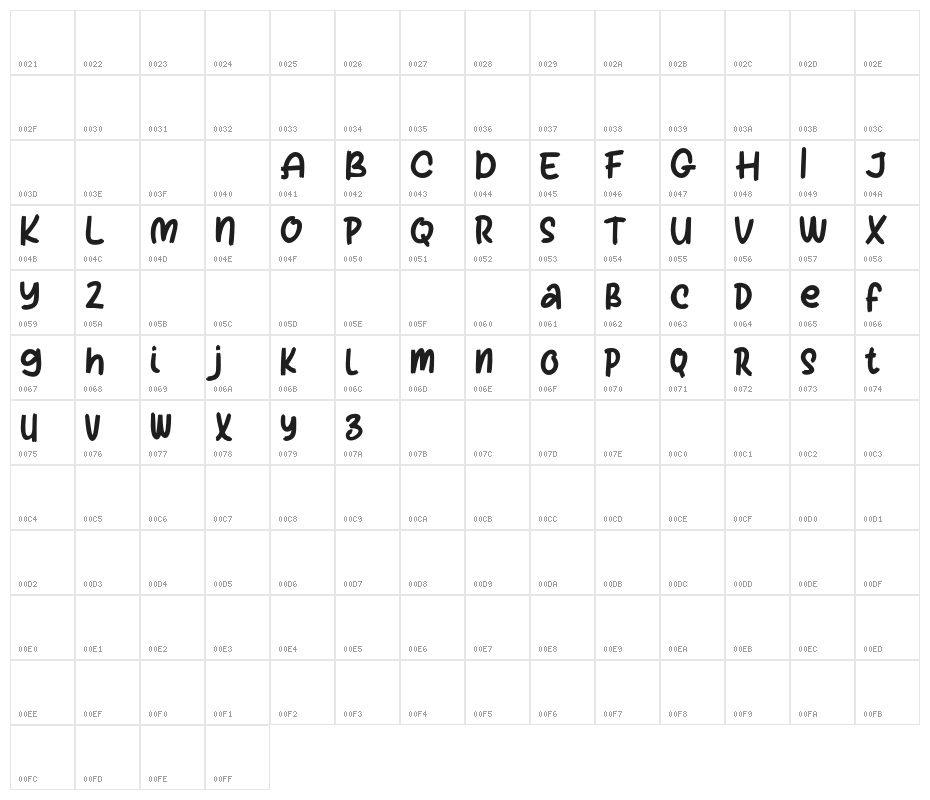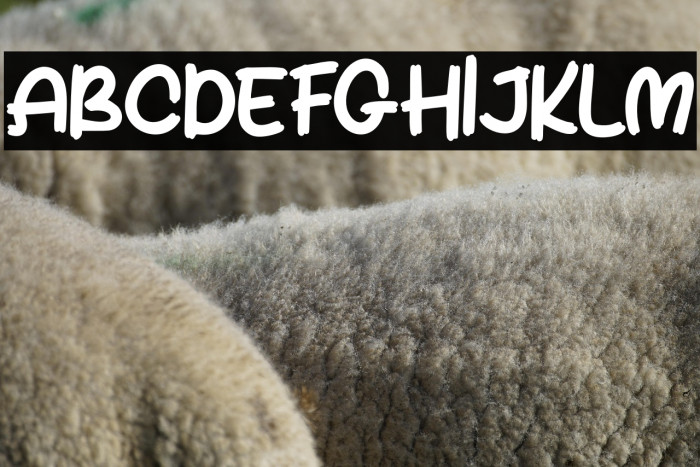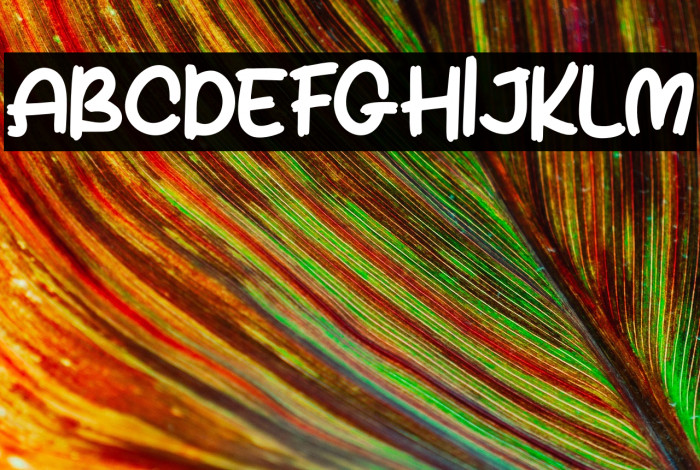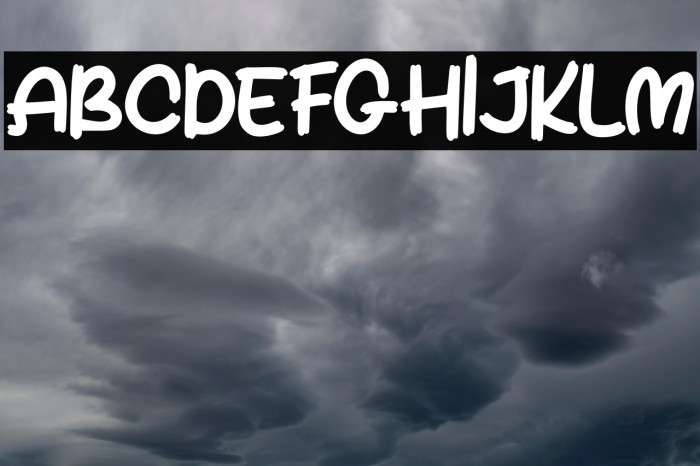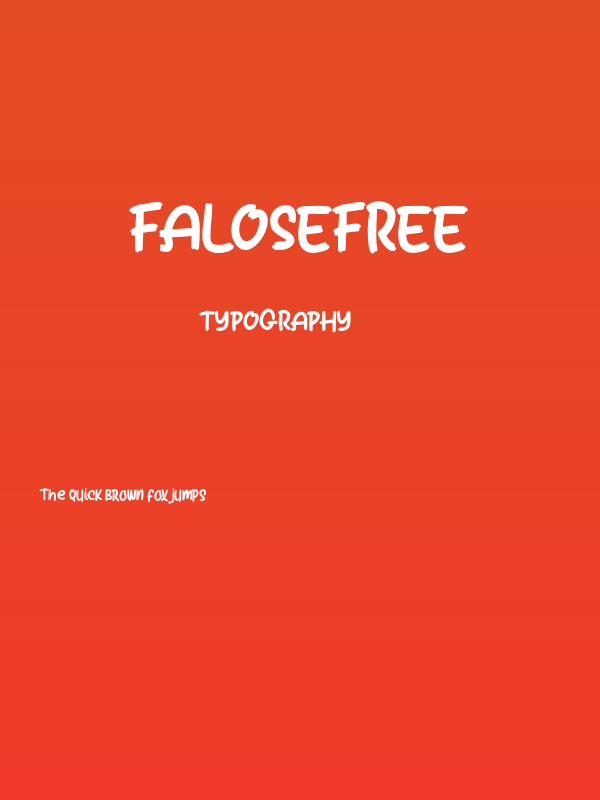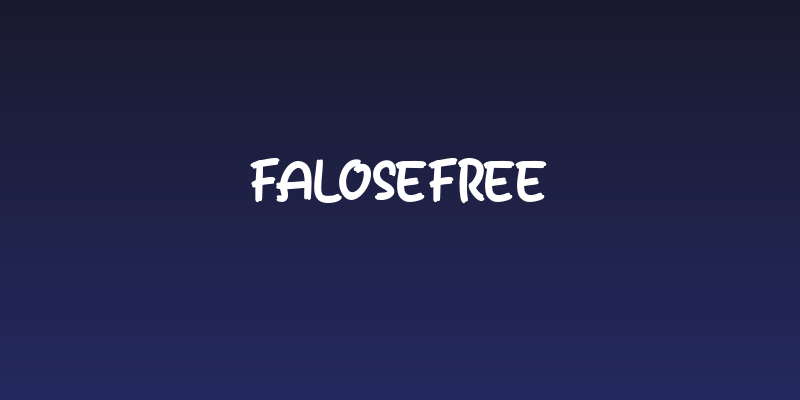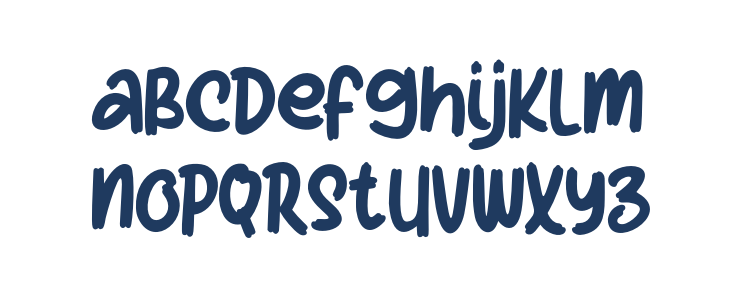
FaloseFREE Font
FaloseFREE Description
This font features a playful and bold handwritten style, characterized by its thick strokes and rounded edges. The letters are slightly slanted, giving it a dynamic and energetic feel. The uppercase and lowercase letters maintain a consistent style, with the lowercase letters being slightly more compact. The numbers and special characters follow the same aesthetic, ensuring uniformity across all characters. This font's informal and friendly appearance makes it suitable for creative and casual projects.
| Overall Style | Playful |
| Proposed Projects | Ideal for children's books, playful branding, greeting cards, and social media graphics. |